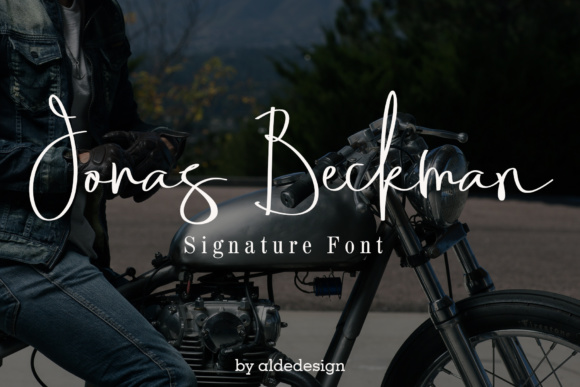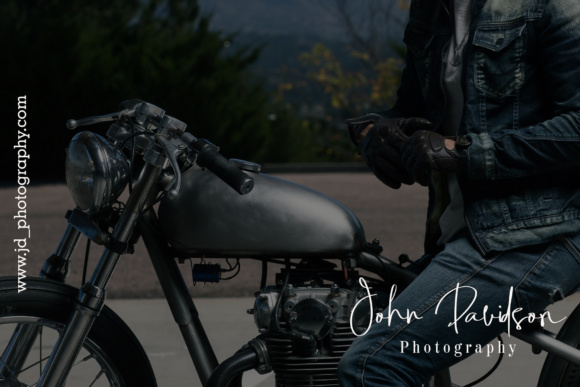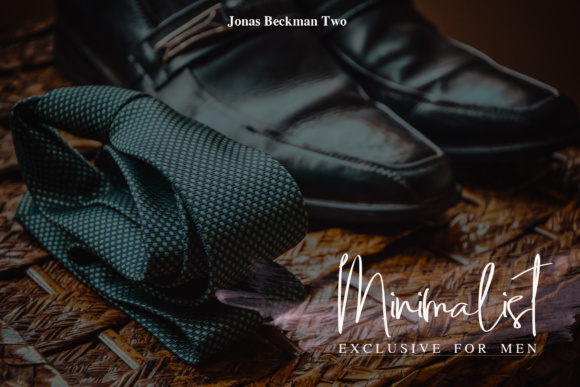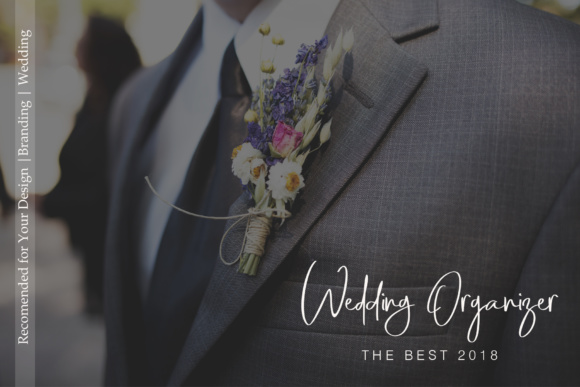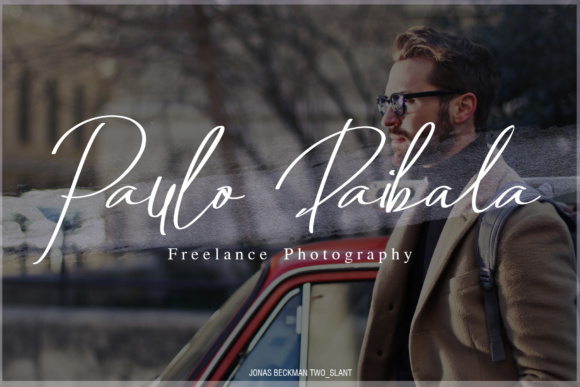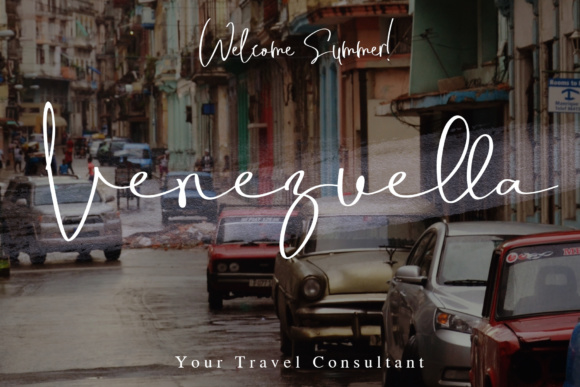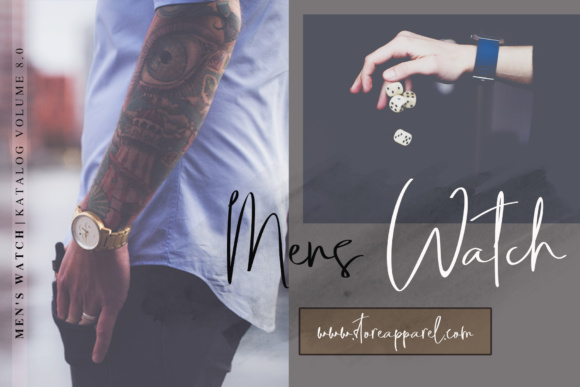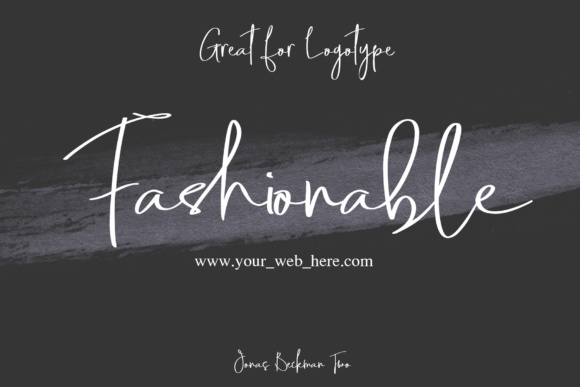
Jonas Beckman Font
About Jonas Beckman Font
Jonas Beckman is a beautiful and casual looking font, perfect for use in contemporary designs. This font comes in two variations, so you can create work that is classy, readable, and incredibly easy to use.